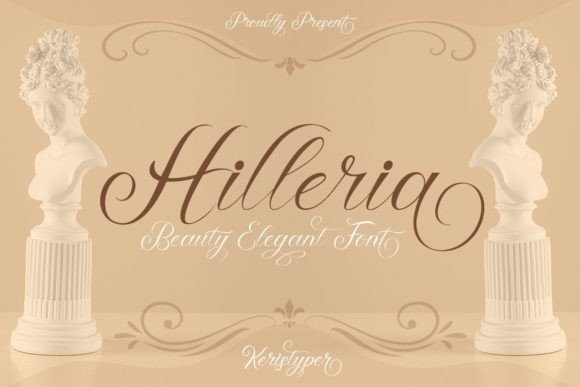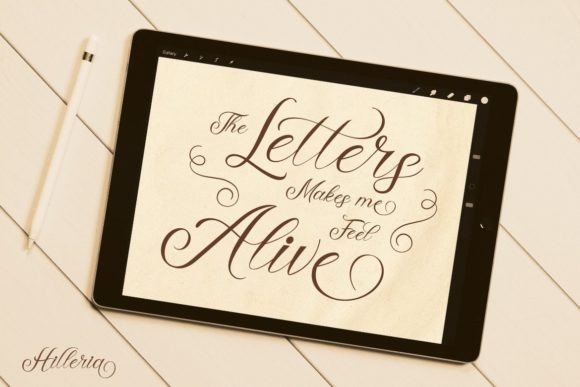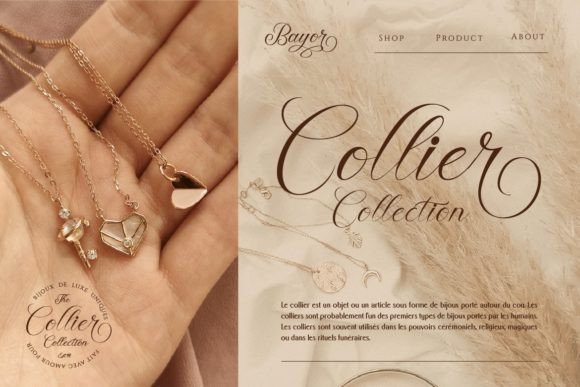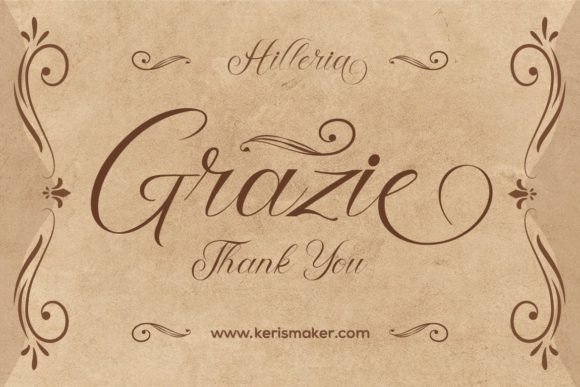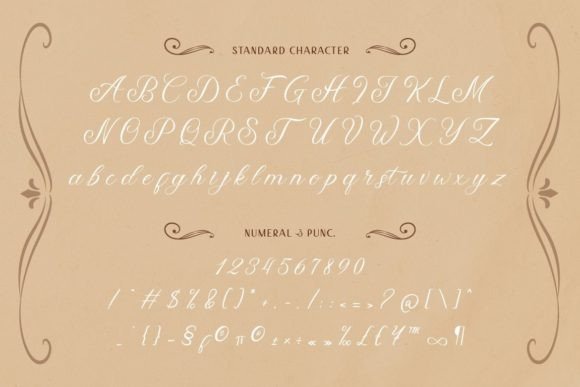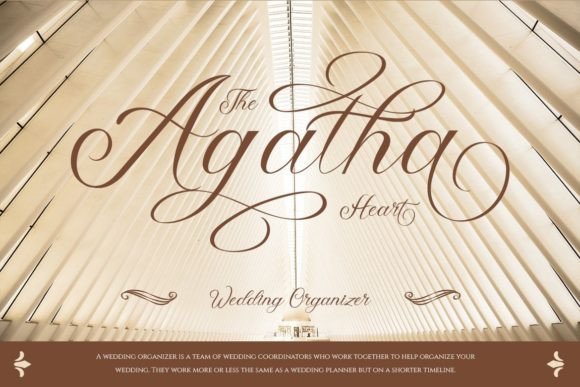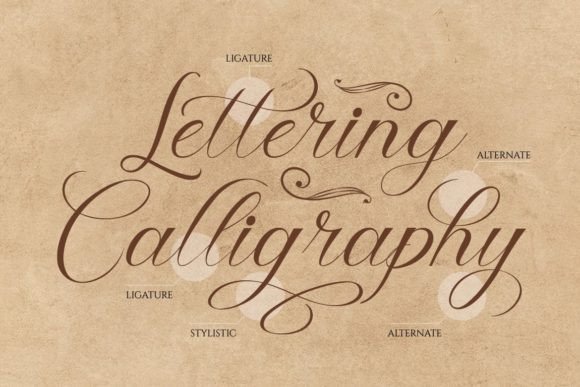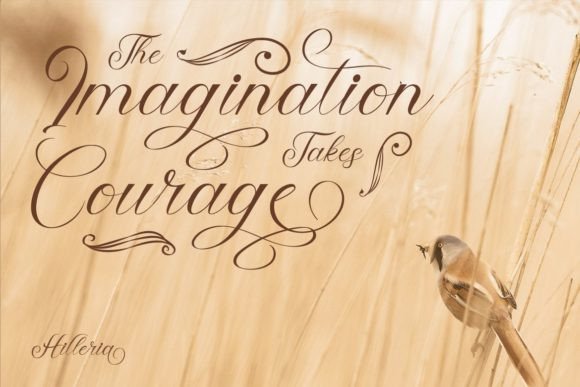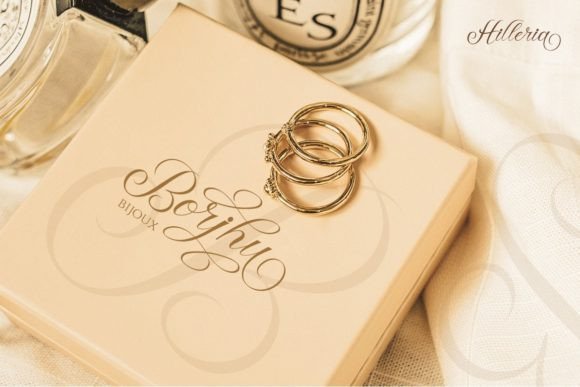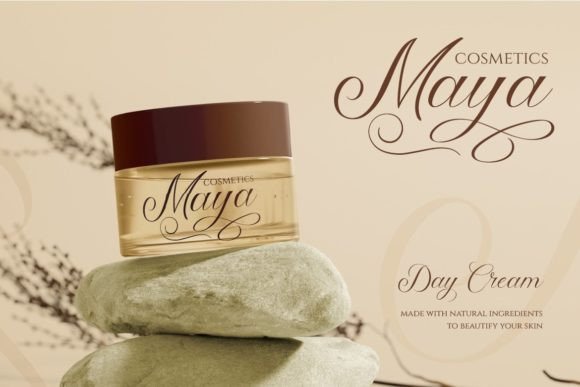
Hilleria Font
About Hilleria Font
“Hilleria: Where Classic Elegance Meets Modern Sophistication in Calligraphy Script Typography
Introducing Hilleria, a calligraphy script font that stands as a testament to exquisite design and timeless elegance. With its intricate change characters and classic decorative script, Hilleria adds a touch of refined sophistication to any project it graces. This font is more than just a typeface; it’s a work of art meticulously crafted to blend classic charm with a modern twist. Whether you’re designing logos, social media graphics, movie titles, book titles, short text, or even long text letters, Hilleria becomes your go-to font, enhancing your designs with a sense of style and grace.
The allure of Hilleria lies in its exquisite change characters, where each letter is designed with great detail to bring out a stylish elegance. Its flowing strokes and delicate curves create a visual harmony that captures the essence of classic calligraphy with a contemporary touch. Imagine your logo adorned with Hilleria’s intricate script, exuding sophistication and timelessness. Picture your social media posts featuring its graceful letterforms, captivating your audience with a blend of classic charm and modern allure. With Hilleria, your designs radiate with refined elegance, making them visually captivating and emotionally resonant.
One of Hilleria’s standout features is its versatility. Its classic decorative script makes it suitable for a wide range of applications, from logos and social media graphics to movie titles and book covers. Whether you’re designing elegant branding materials or crafting visually engaging movie titles, Hilleria elevates your designs with its stylish charm, making them stand out with a unique blend of classic and contemporary appeal.
Moreover, Hilleria is more than just a font; it’s a celebration of artistic craftsmanship and sophistication. Its intricate design and modern twist resonate with individuals who appreciate the beauty of calligraphy and the allure of timeless elegance, making it a favorite among designers and enthusiasts seeking a font that exudes style and grace. Hilleria becomes the embodiment of your creative vision, allowing you to infuse your projects with a touch of refined sophistication and visual allure.
In a world where classic elegance meets modern sophistication, Hilleria helps you make a statement. It speaks the language of timeless charm and contemporary allure, resonating with those who appreciate the beauty of calligraphy and the art of typographic design. Whether you’re designing for branding, movie titles, or any creative endeavor, Hilleria becomes your trusted companion, guiding you toward design excellence.
So, why settle for ordinary when you can embrace the extraordinary with Hilleria? Let this calligraphy script font be the canvas for your creative expressions, and watch as your projects come to life with exquisite elegance, style, and sophistication. Let your creativity flow, and let Hilleria be the brushstroke that paints your ideas into visually captivating masterpieces, leaving a lasting impression on the hearts of your audience. Transform your designs into works of art with Hilleria, where classic charm meets contemporary allure.”